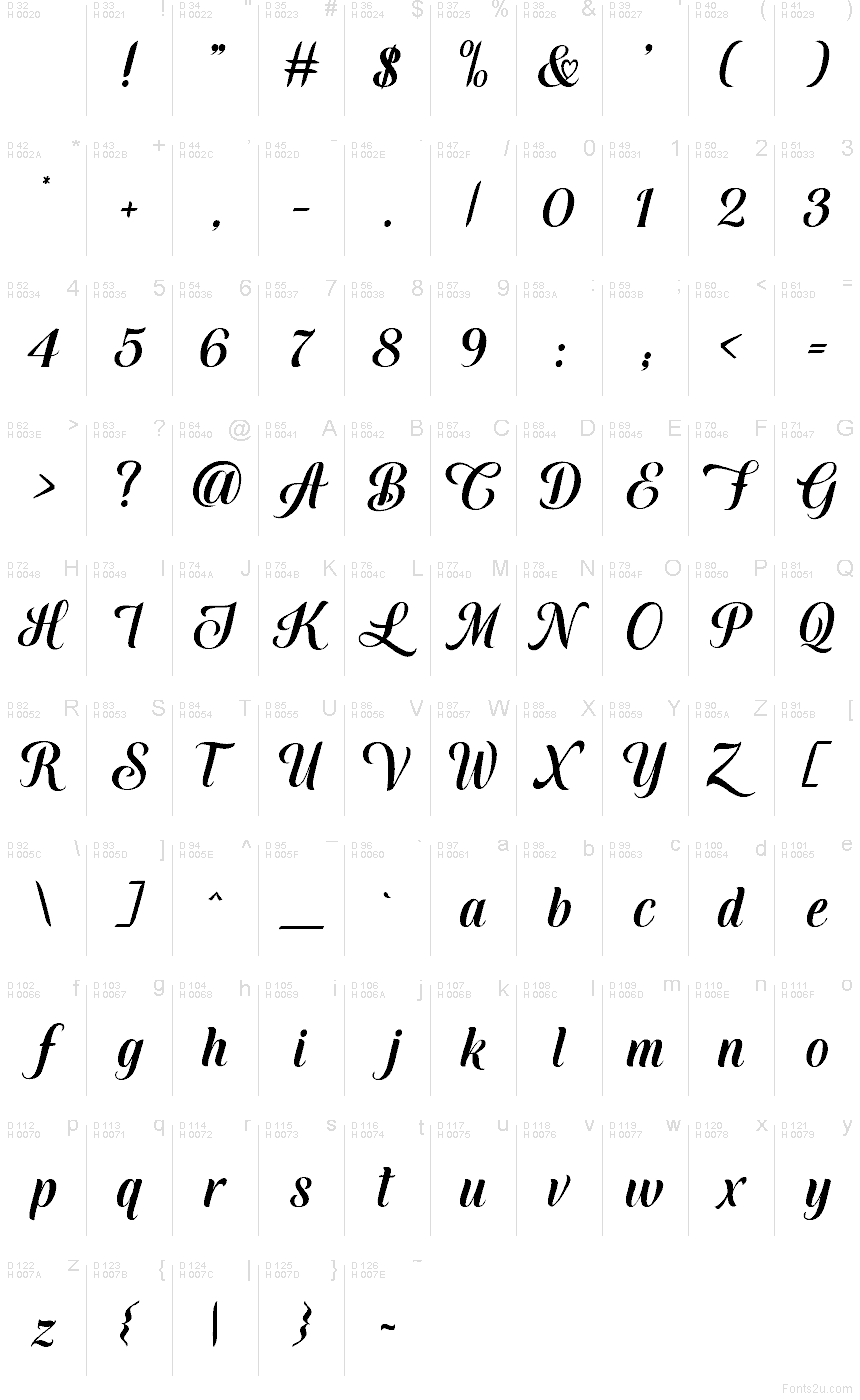
Sephora & Hayden
Sephora & Hayden by Cat.B is a free calligraphy font with a fashion-led, editorial slant. The letters pair a sweeping, ribbon-like flow with sharp contrast, so the font feels poised and dramatic rather than soft or rustic, with a large opening flourish that gives the line an elegant first gesture.
It fits branding, boutique packaging, magazine cover lines, invitation headings, and beauty or lifestyle social graphics where a free font needs a dressy signature look without turning overly ornate. Use it for short titles, logo sketches, or monogram-style initials too, because those long curves and narrow joins give even a few letters a strong sense of movement.